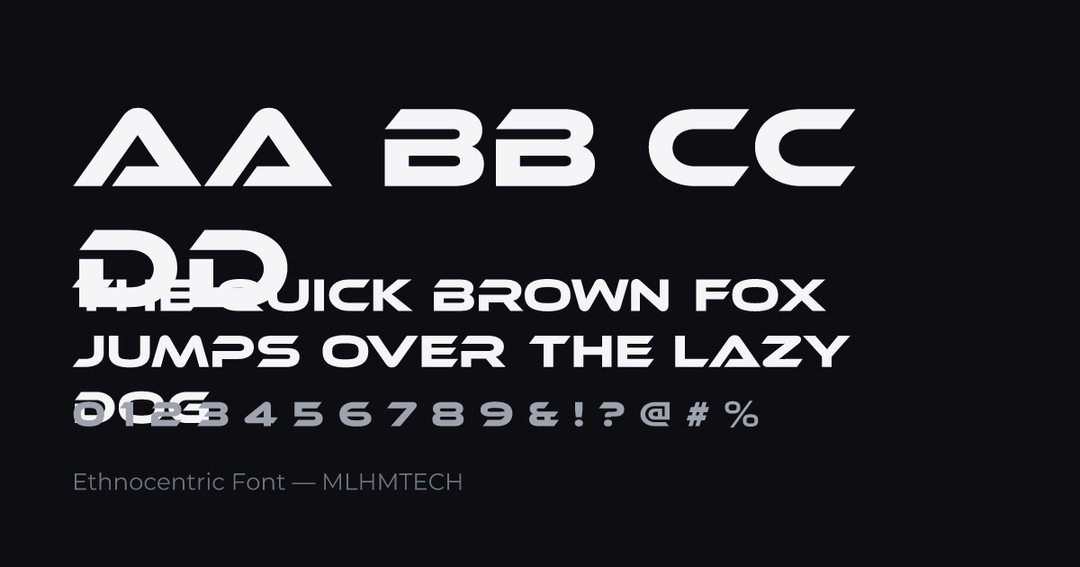
Ethnocentric Font
A bold, futuristic display font with a sci-fi edge, ideal for titles, logos, and tech-themed projects.
Ethnocentric is a striking display font that exudes a futuristic and technological vibe. Its geometric, angular letterforms are reminiscent of science fiction and cyberpunk aesthetics, making it a popular choice for gaming, tech, and entertainment designs.